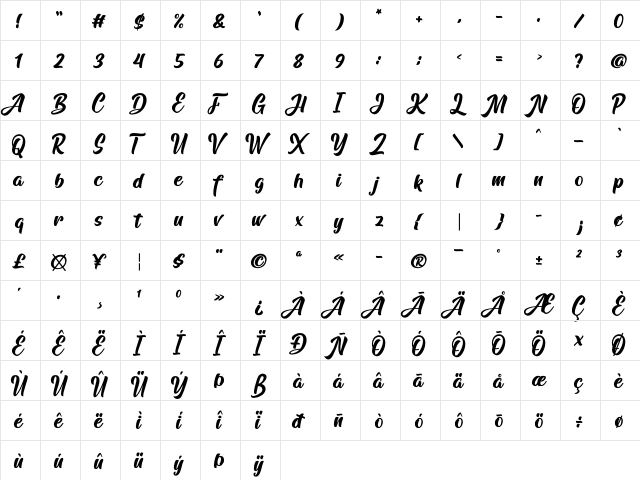
Arfelick Feather Regular
| Designer | Riyadh Rahman |
Design Context for Arfelick Feather Typeface
Arfelick Feather is a composed and adaptable typeface that performs quietly and consistently across a wide range of design contexts.